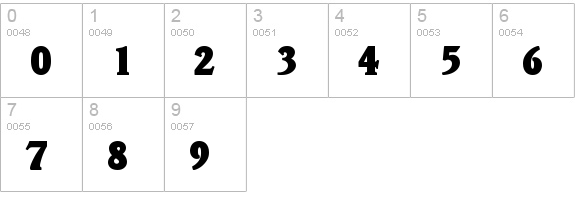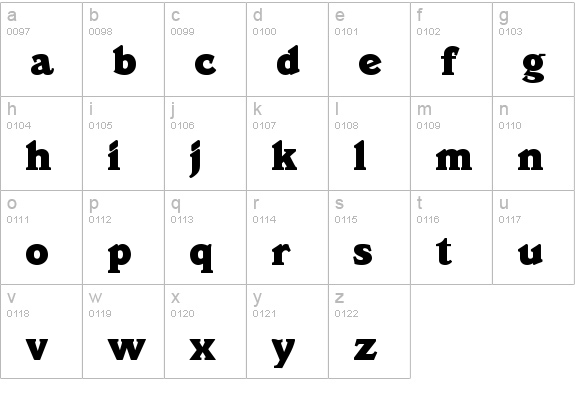
Decus SSi Font Details
Decus SSi is a stylish and modern font that adds a touch of sophistication to any design project. Its sleek lines and elegant curves make it perfect for a wide range of applications, from branding to editorial design. This versatile typeface exudes a sense of class and professionalism, making it ideal for corporate materials, invitations, and more. What sets Decus SSi apart is that it is not only visually appealing but also free to download. You can easily access this beautiful font at FontsMarket.com and enhance your creative projects without any cost. Whether you are a professional designer, a student, or just someone looking to add a touch of flair to your work, Decus SSi is a fantastic choice that won't break the bank. Download it today and elevate your designs with this stunning and freely available font.